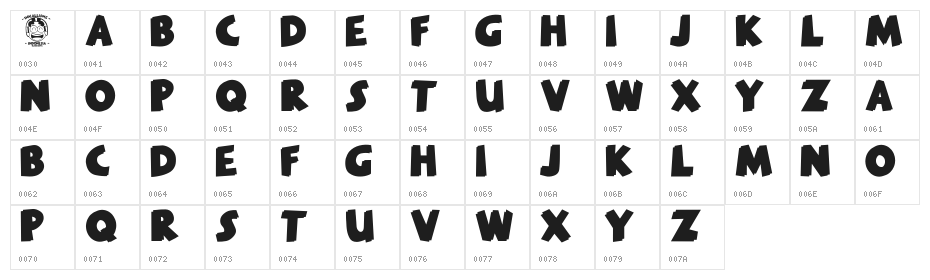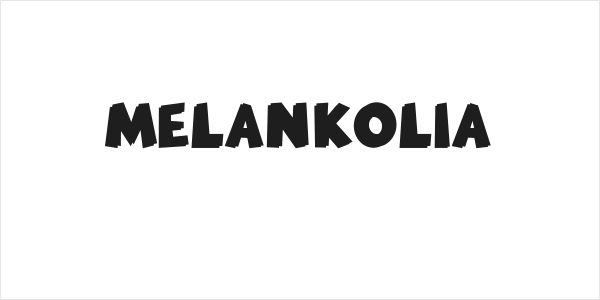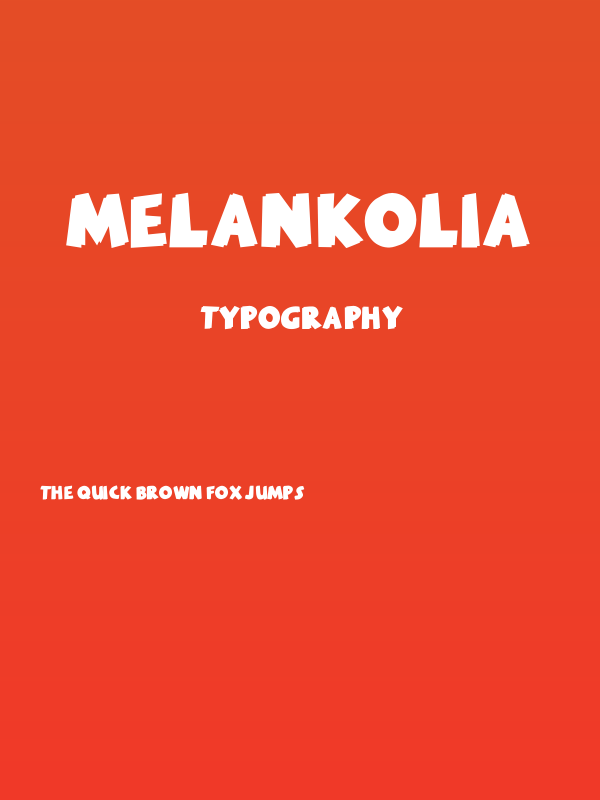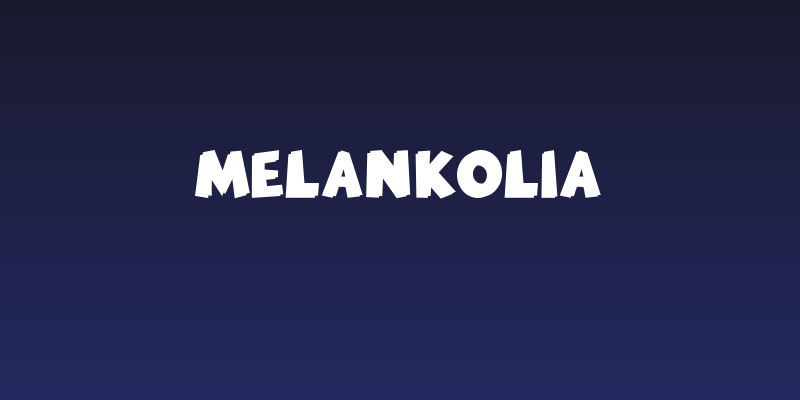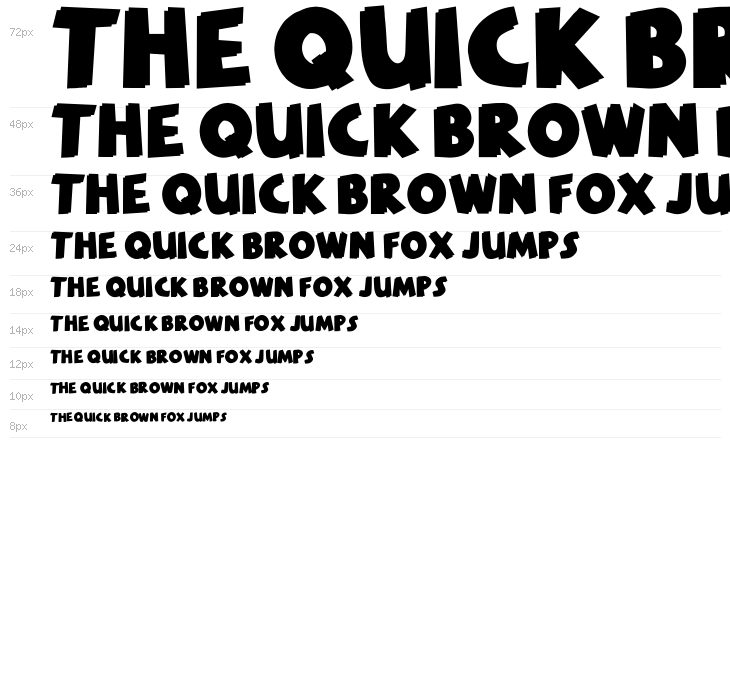
MELANKOLIA Font
MELANKOLIA Description
This font features a playful and whimsical style, characterized by its rounded and bold letterforms. The characters are evenly spaced, providing a clean and approachable appearance. The font includes both uppercase and lowercase letters, numbers, and a selection of special characters, making it versatile for various design needs. Its boldness and rounded edges give it a friendly and inviting look, suitable for projects that aim to convey warmth and approachability. The consistent stroke width across all characters ensures readability while maintaining a unique and engaging aesthetic.
| Proposed Projects | This font is perfect for children's books, playful branding, casual invitations, and any project that requires a friendly and approachable typeface. |